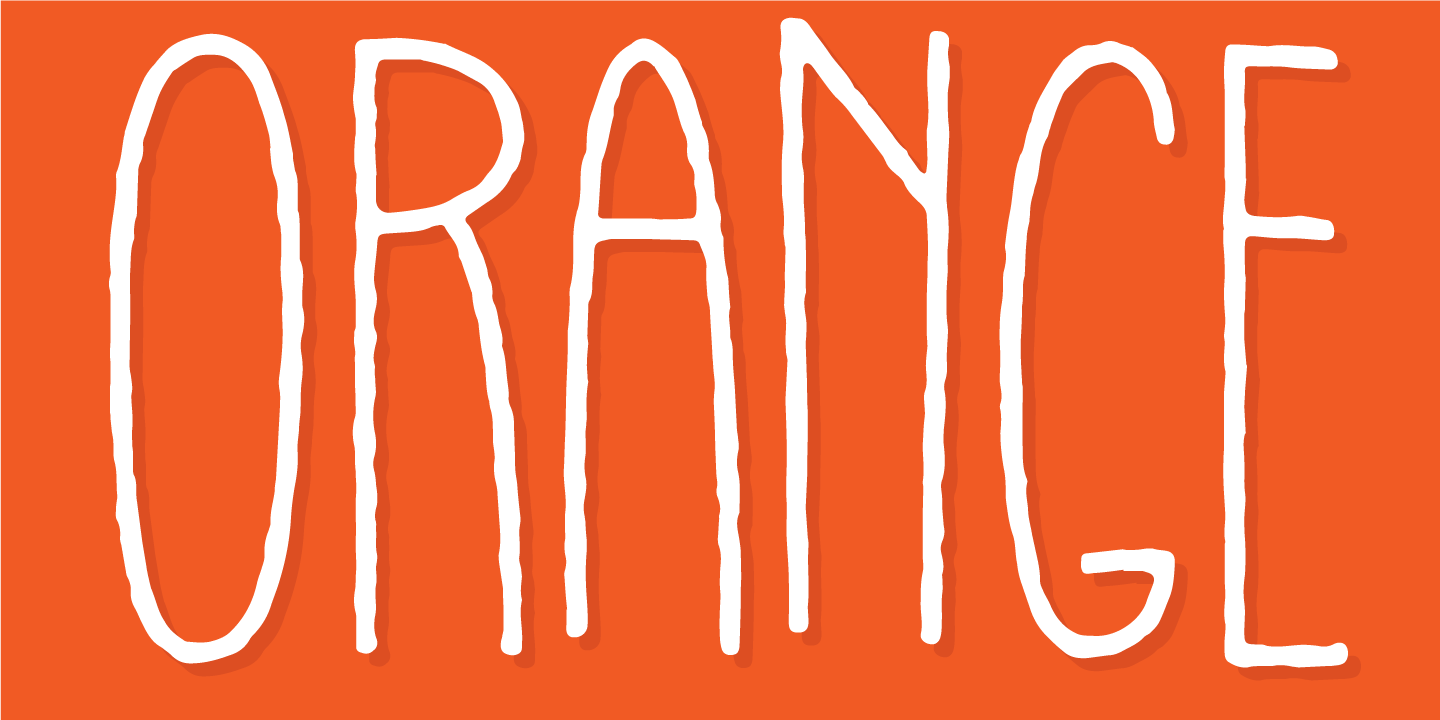
Gulerod Font is perfect for organic vegetable branding, healthy food campaigns, farm-to-table restaurant menus, nutritional supplement packaging, children's health education, garden center promotions, natural wellness materials, and wholesome family communications.
This vibrant display typeface is exciting because it captures the natural goodness and nutritional vitality of fresh carrots through warm letterforms that evoke the earth-to-table journey and the essential vitamins that support healthy living and growth.
The Gulerod Font family includes regular and bold weights with organic alternates, vegetable-inspired decorative elements, and garden-fresh variants that enhance the healthy, natural atmosphere of any nutrition-focused design project.
Healthy and natural, Gulerod Font Free Download brings the nutritional wisdom and garden-fresh vitality of wholesome vegetables to contemporary typography through authentic farm-fresh character. This nourishing font embodies the essential nutrition and natural goodness that supports healthy families and the understanding that real wellness begins with quality ingredients grown with care and respect for natural processes, making it perfect for health-focused brands that appreciate the connection between soil and plate. Its warm character reflects the sun-grown vitality and earth-rich nutrients that make fresh vegetables essential for optimal health and the satisfaction that comes from knowing your food's source and story, resonating with health-conscious families who prioritize nutrition over convenience. Perfect for organic farms and health food stores, this font ensures your message carries the nutritional authenticity and garden-fresh credibility that wellness-minded consumers seek. Whether used for farmers market signage or children's nutrition education, Gulerod Font Free Download delivers the wholesome goodness and nutritional integrity that connects with people who understand that healthy eating begins with fresh, quality ingredients and the wisdom to choose foods that nourish both body and spirit through natural nutrition.